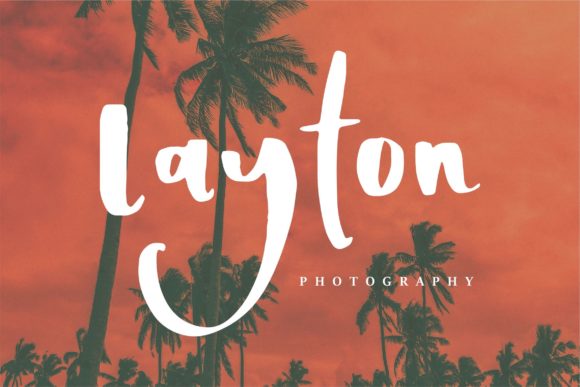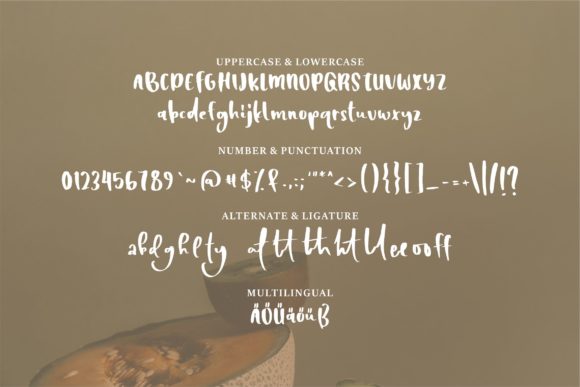
Introduction to Satlar Font
As a designer, have you ever found yourself stuck in a creative rut, searching for the perfect font to elevate your latest project? Maybe you’re designing packaging for a new product, or crafting an invitation for a special occasion. Whatever the task, one thing is certain: the right font can make all the difference. That’s where the Satlar Font comes in – a stunning, free-flowing script font designed to add a touch of high-quality flair to any creative project.
With its beautiful and balanced character, the Satlar Font is the perfect design resource for anyone looking to create eye-catching designs that stand out from the crowd. Whether you’re working on a mockup, flyer, or event poster, this versatile font is sure to deliver the high-quality vibes you’re looking for.
Key Features of Satlar Font
- Unique, modern design with a transparent background, making it perfect for overlaying on images or videos.
- Supports a wide range of languages, making it a versatile choice for international design projects.
- Designed with a high-resolution output in mind, suitable for print and digital applications up to 300 DPI.
Honest Review: Satlar Font
I recently had the chance to work with the Satlar Font, and I must say it’s been a game-changer for my design projects. As a designer, I’m always on the lookout for high-quality design resources that can elevate my work, and the Satlar Font definitely delivers.
One of the standout features of the Satlar Font is its versatility. It’s perfect for use in a wide range of creative projects, from logos and branding to digital graphics and print materials. The font is highly customizable, allowing me to tailor it to suit my specific design needs.
- ✨ Highly customizable and adaptable for various design projects
- ✨ High-quality design with a professional look and feel
- ⚠️ Limited font styles available, which may limit its use in certain projects
The Satlar Font is ideal for various creative projects, including:
- Social media graphics and posters.
- Presentations and documents.
- Branding and marketing materials.
- Web design and development.